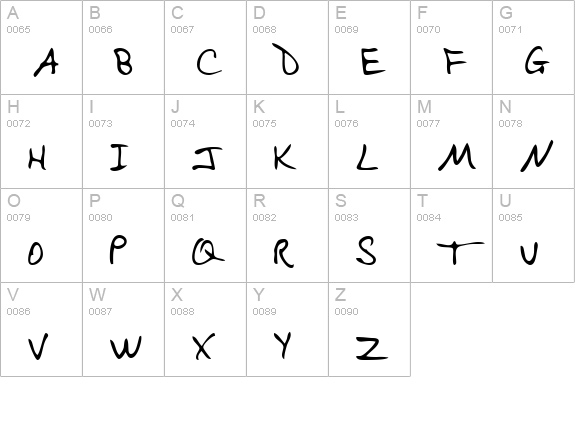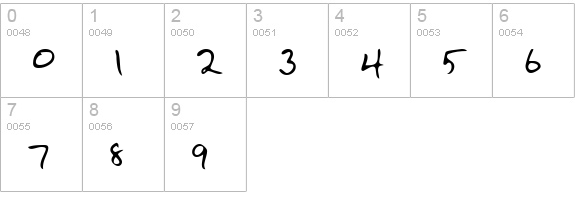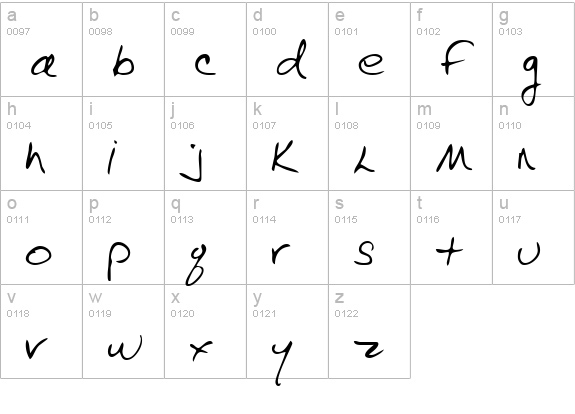
EvelynsHand Regular is the standard, neutral variant in the EvelynsHand typeface family \xE2\x80\x94 well suited to general body text, paragraphs, and standard typographic work.
EvelynsHand Regular font is a charming and elegant script typeface that exudes a sense of sophistication and creativity. With its flowing lines and graceful curves, this font is perfect for adding a touch of whimsy and personality to your design projects. Whether you're creating invitations, greeting cards, or branding materials, EvelynsHand Regular font will bring a unique and stylish flair to your work. The best part? EvelynsHand Regular font is available for free download at FontsMarket.com. This means you can easily access this beautiful font and use it in your projects without any cost. Don't miss out on the opportunity to enhance your designs with the beauty and grace of EvelynsHand Regular font. Download it today and elevate your creative work to new heights.